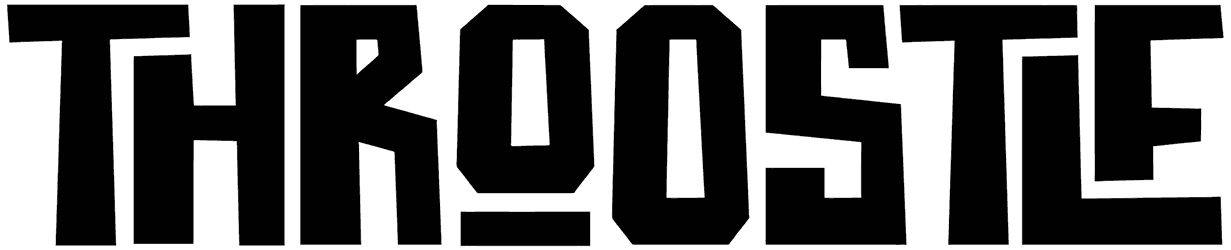
Throostle Font
By using a bold font, you can design various designs and give them an interesting look. This bold and strong item has a distinct style that can be a cool choice for various ideas, even without lowercase letters. Set Throostle font on your intended layouts, such as posters, games, apparel, packaging, or the like, and be creative.